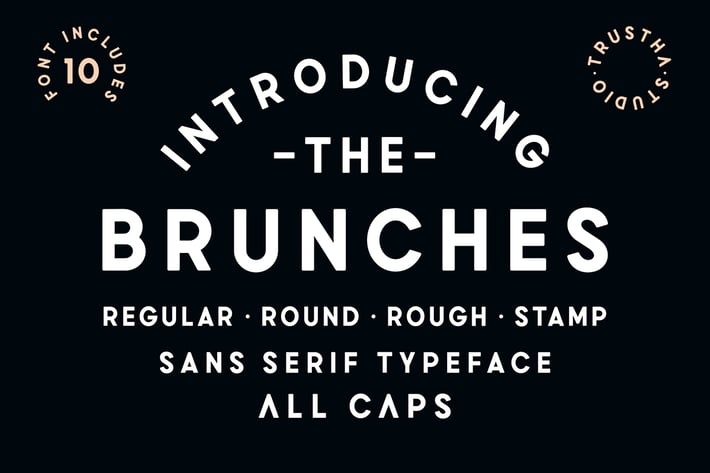
Brunches Font Family
Brunches is a sans serif font with several different styles. Basically this font is designed with geometric principles. There are several choices of styles to choose from as needed. Suitable for all any creative project. Will make each project easier and more colorful because it has several different styles.
- Brunches Regular & Slanted
- Brunches Rough & Slanted
- Brunches Round & Slanted
- Brunches Stamp & Slanted
- Brunches Rounded & Slanted
- Uppercase & lowercase
- Number & punctuation symbols
- Stylistic sets
- International characters (Multilingual)